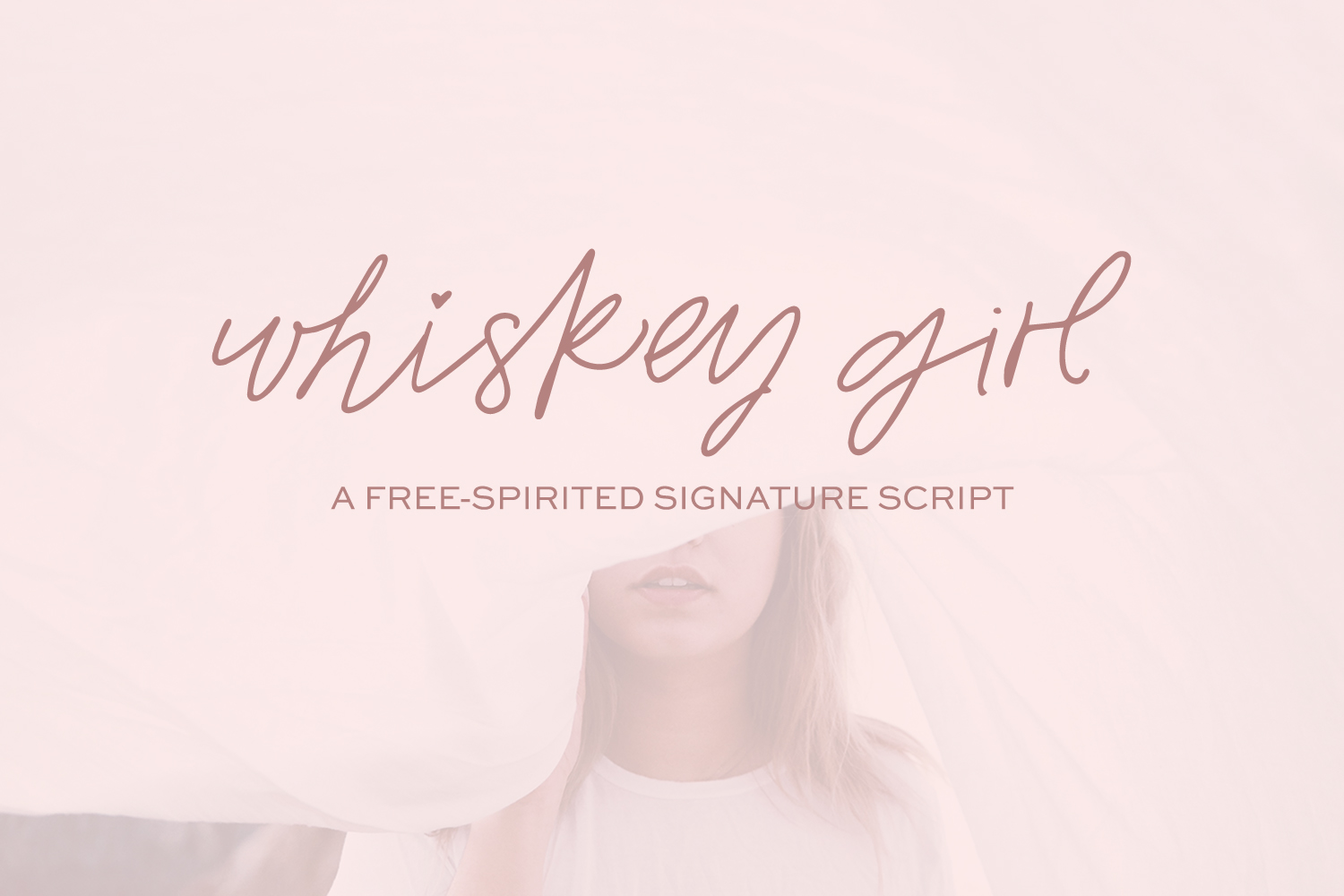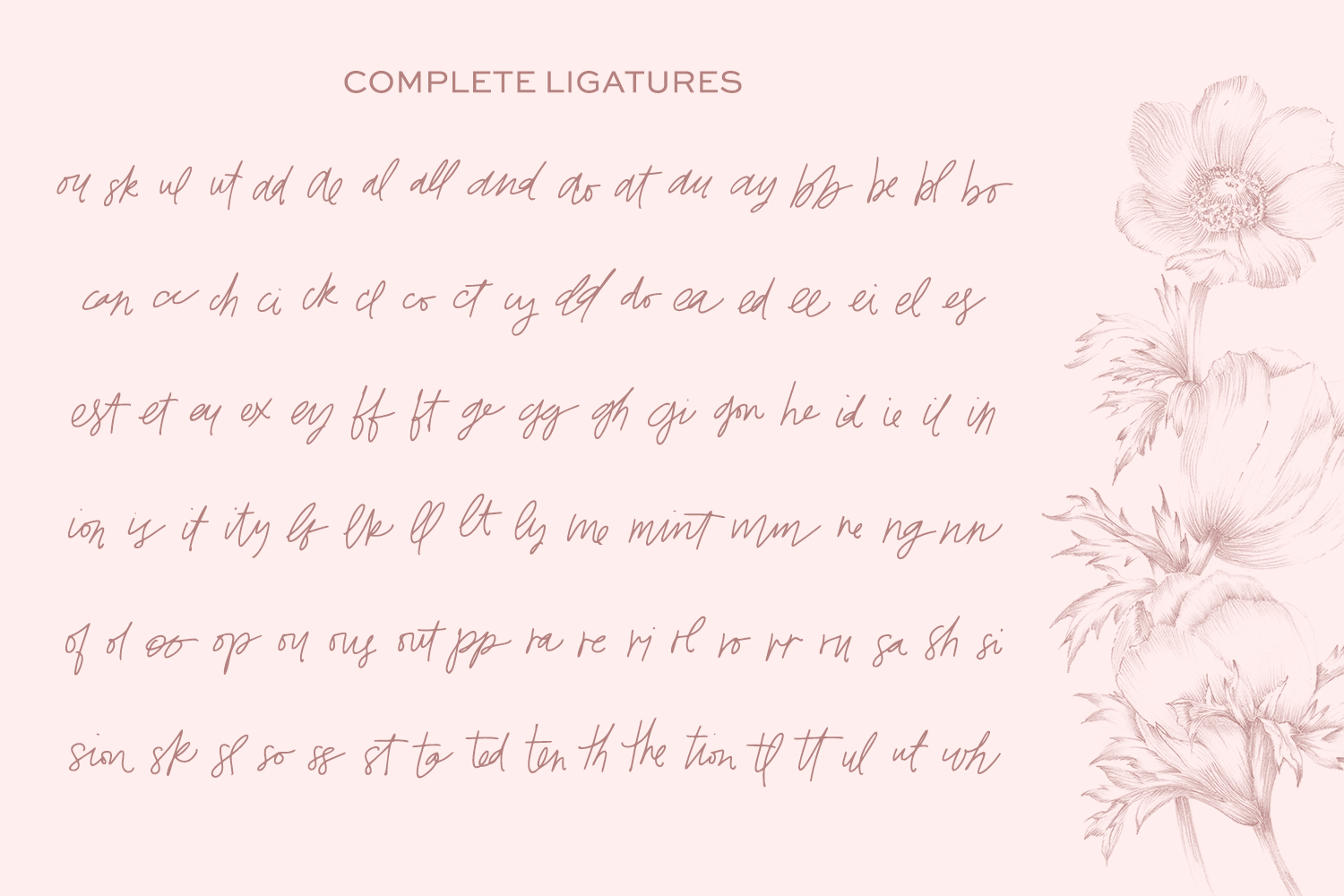
About Whiskey Girl Font
Whiskey Girl is a free-spirited, carefree signature font, packed full of ligatures that mirror handwriting. Design your relaxed, casual brand with Whiskey Girl, surely a sassy yet approachable addition to your font arsenal. In addition, Whiskey Girl pairs well with Sweet Sans & Theory of a Deadman lyrics.